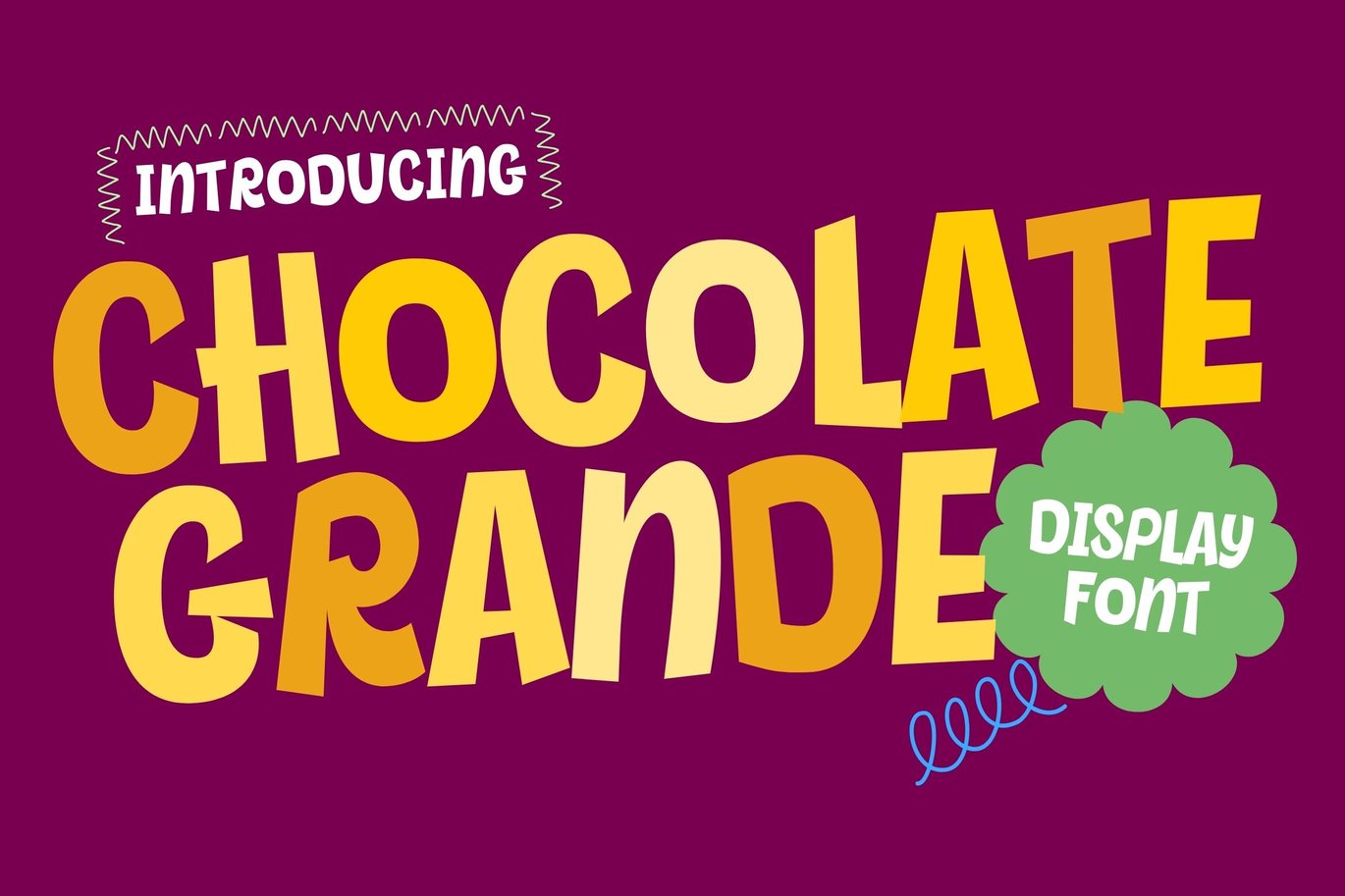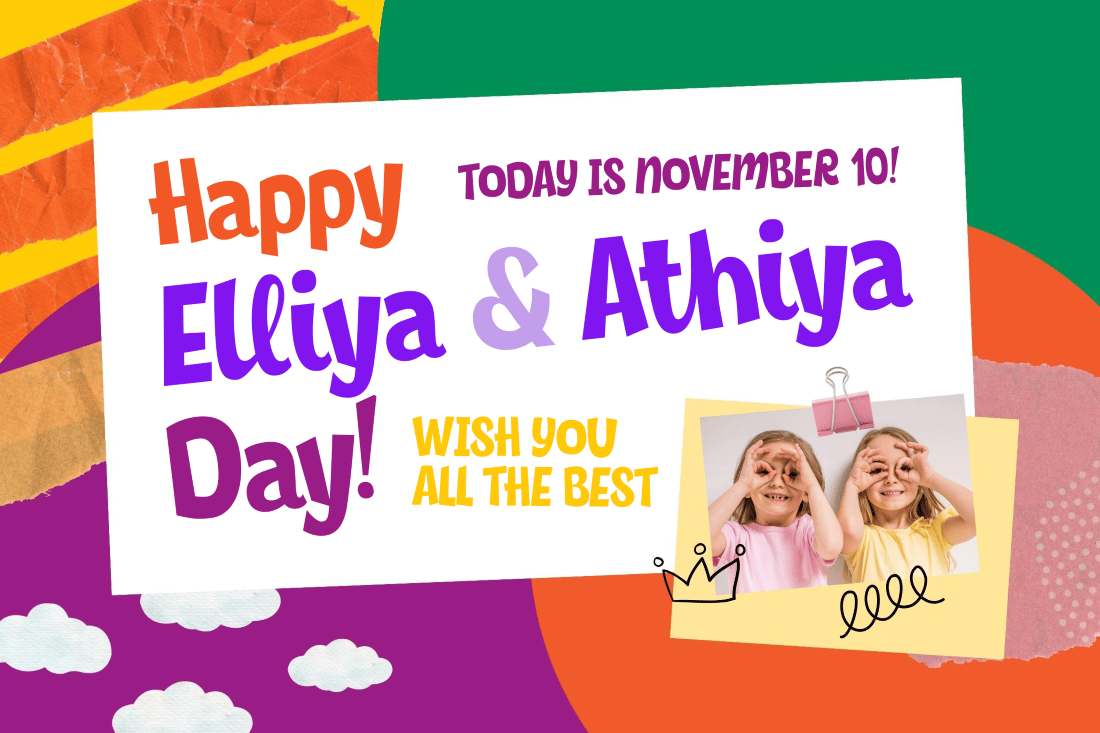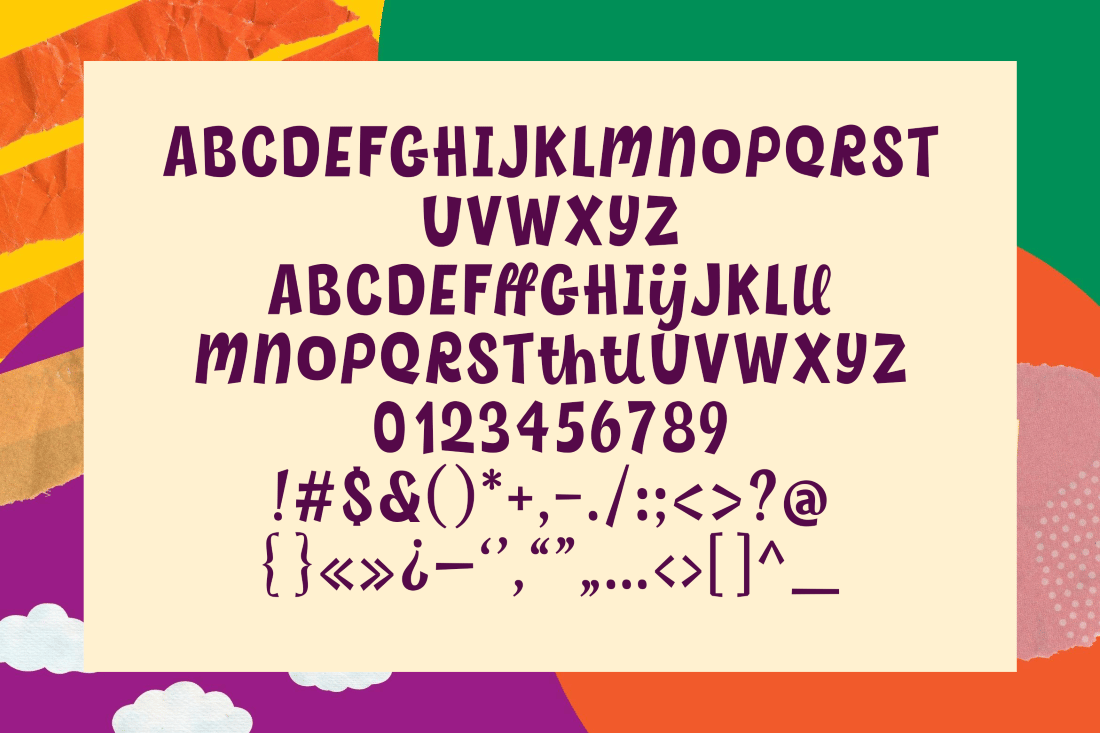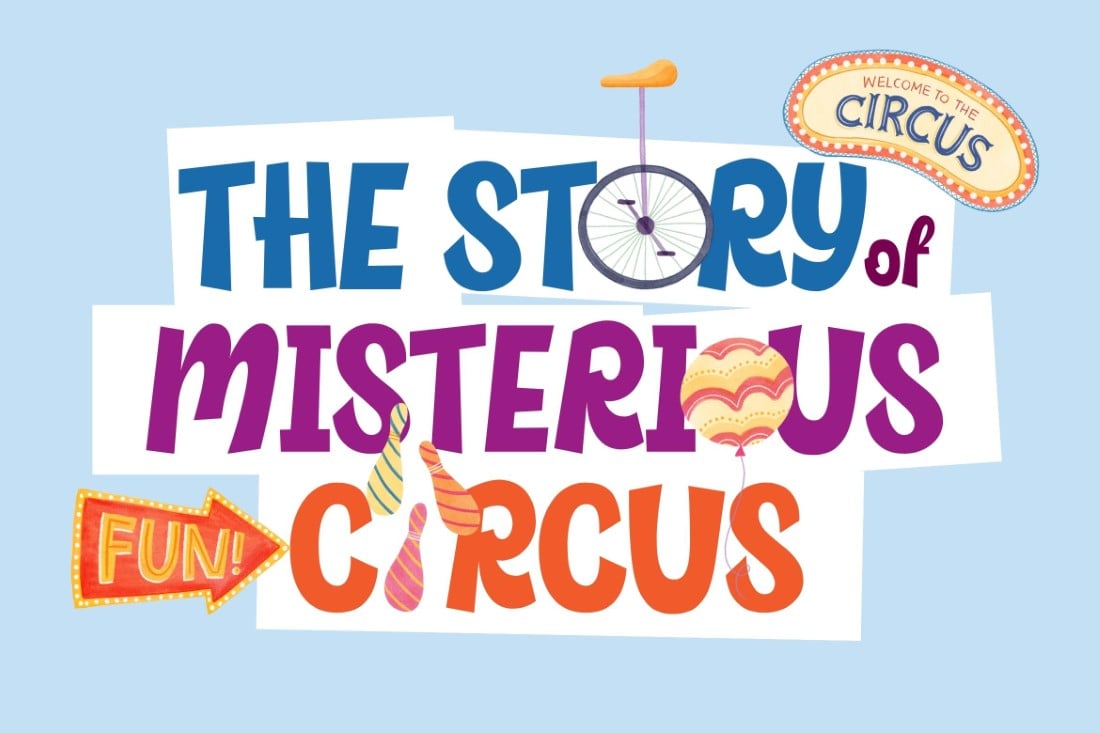
Chocolate Grande – Playful Display Font
Introducing “Chocolate Grande,” a playful and bold display font that merges the charm of handwritten script with a retro-modern twist. Ideal for posters, kids’ school projects, and notes, this font infuses your designs with a touch of whimsy and creativity. Its legible characters retain a personal touch, evoking nostalgia for handwritten notes and school days.
“Chocolate Grande” is the perfect choice to add a fun and lighthearted vibe to your projects, whether you’re designing children’s book covers or educational materials. With its eye-catching appeal, this font stands out effortlessly, making it a poster-perfect choice for captivating designs.
Embrace the fusion of playful elegance and vintage charm with “Chocolate Grande” – your gateway to typography that’s as delightful as a bite of your favorite chocolate. Unlock a world of playful possibilities and elevate your designs with this versatile font today.